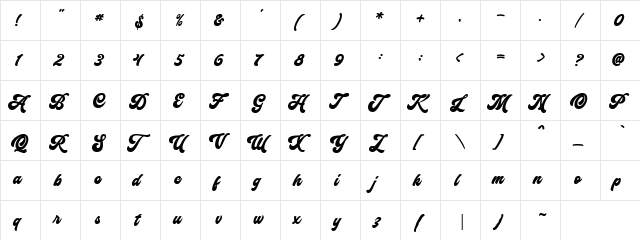
Funkies Regular
Design Context for Funkies Typeface
Funkies has an approachable, lighthearted character — its loose, expressive forms are well-suited to children's content, casual branding, and fun-first design.
Font Pairing: Pairs well with a rounded or humanist sans for body copy, maintaining the friendly tone without relying on Funkies to carry extended reading.
Pro Tip: Avoid using Funkies for long passages of text — it works best for headlines, labels, and short calls to action.